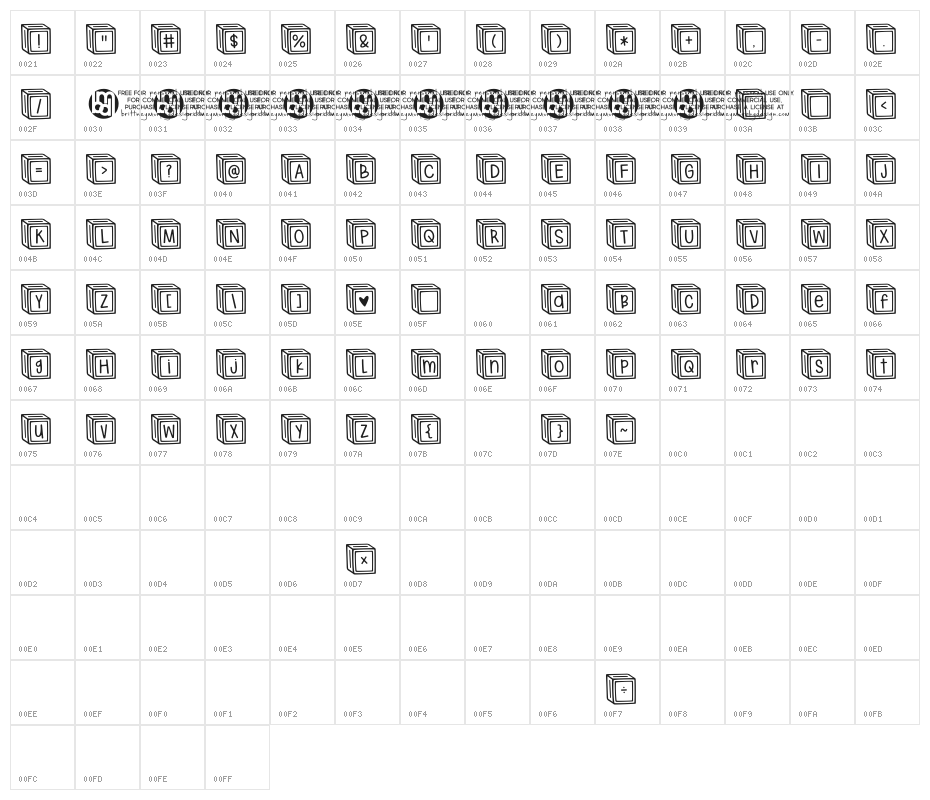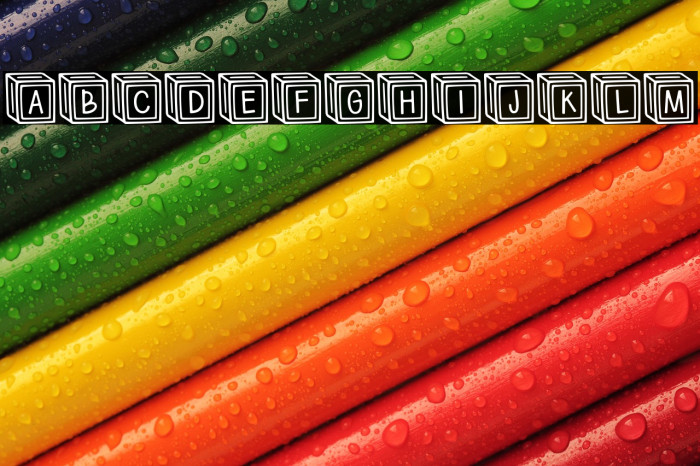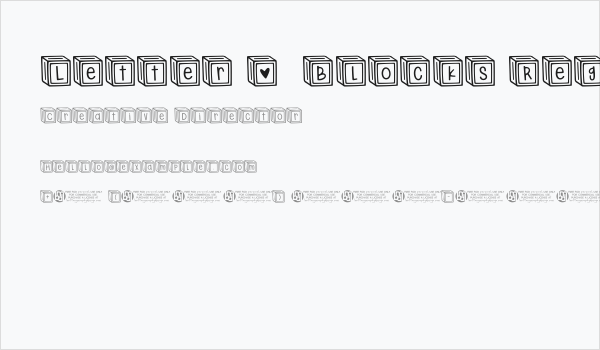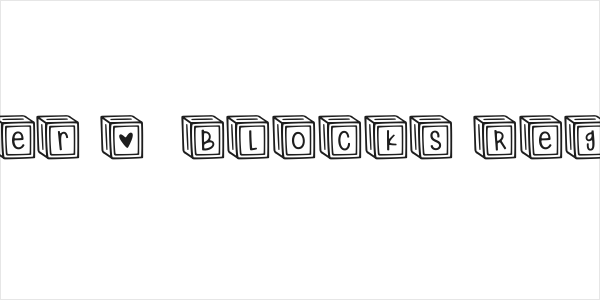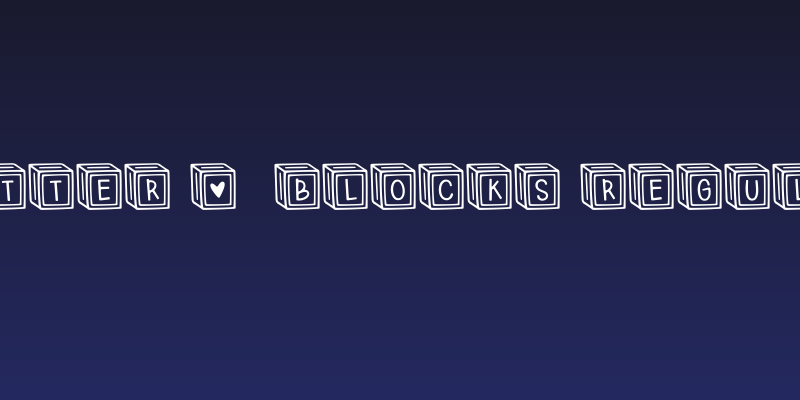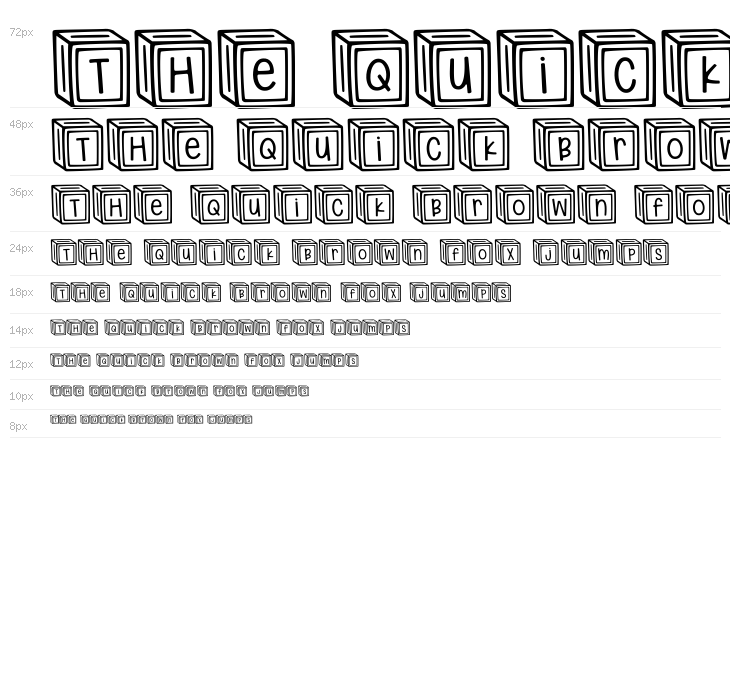
Letter ^ Blocks Regular Font
Letter ^ Blocks Regular Description
This playful and decorative font is designed to resemble children's building blocks, with each character enclosed in a three-dimensional cube. The letters are bold and clear, making them easily readable while maintaining a fun and whimsical appearance. The font features both uppercase and lowercase letters, numbers, and a variety of special characters, all consistently styled within the block motif. The design is reminiscent of childhood toys, evoking a sense of nostalgia and creativity. Its unique style makes it suitable for projects that aim to capture a youthful or playful essence.
| Overall Style | Playful, Whimsical |
| Proposed Projects | Perfect for children's books, educational materials, toy packaging, and playful branding. |